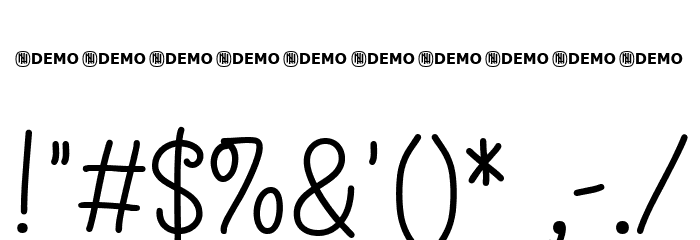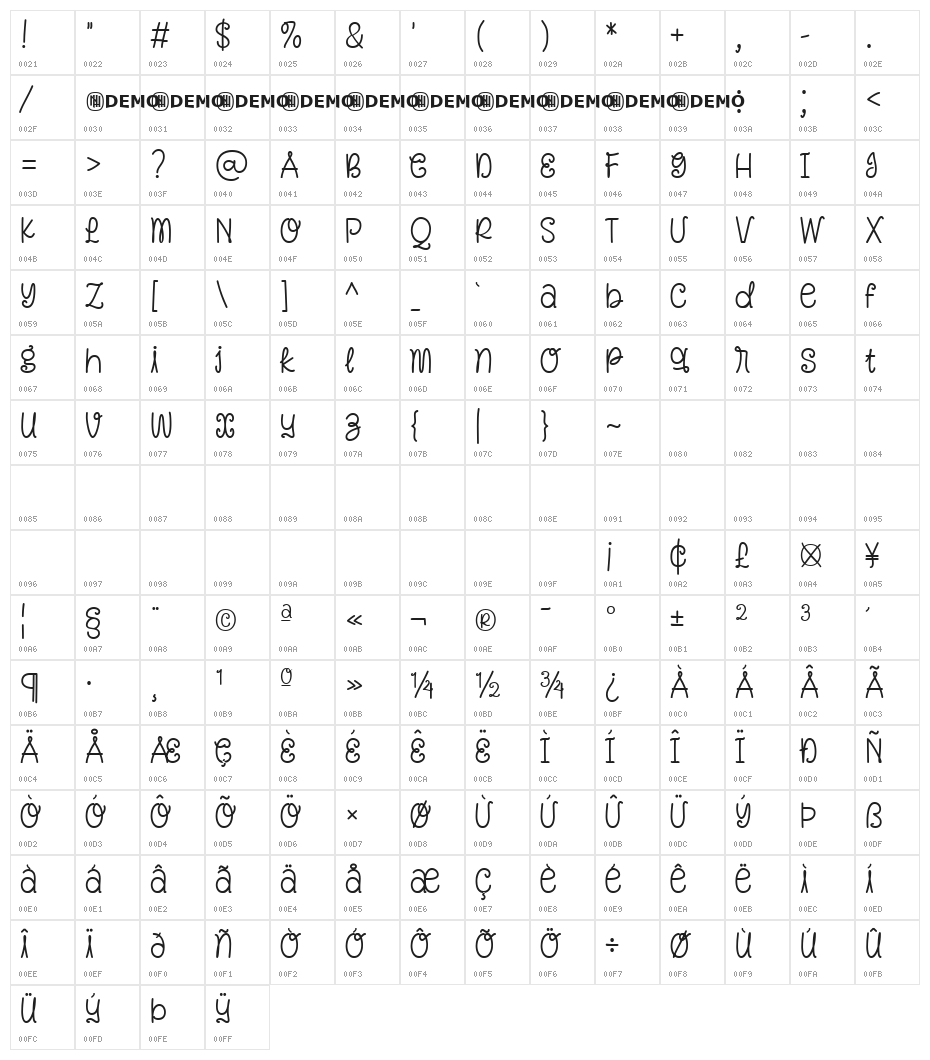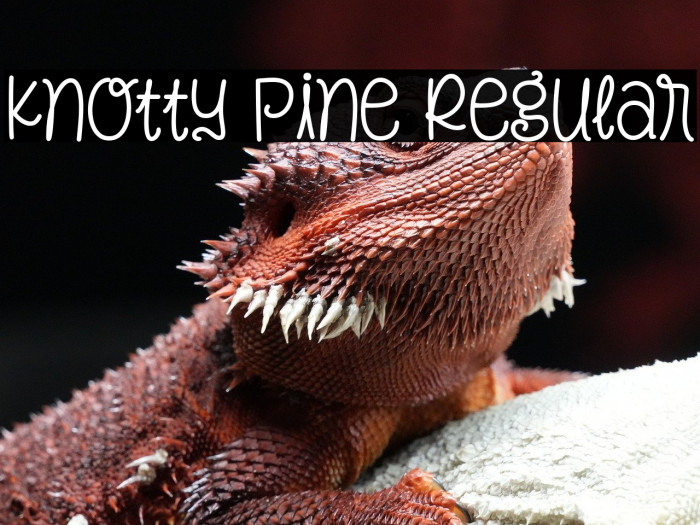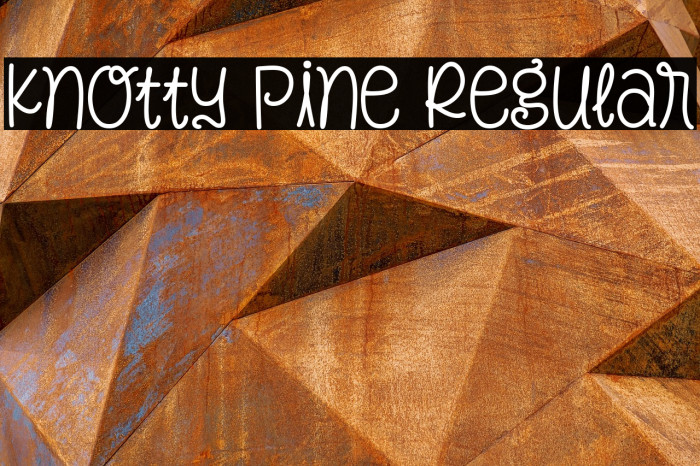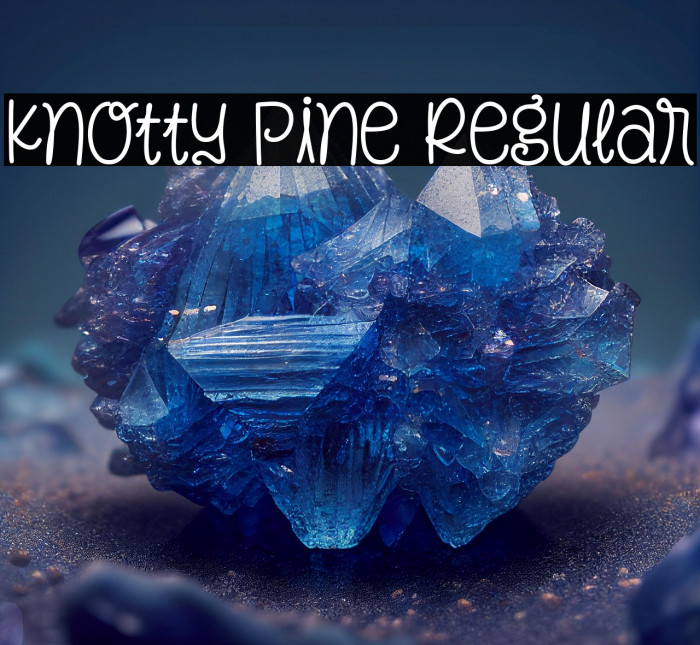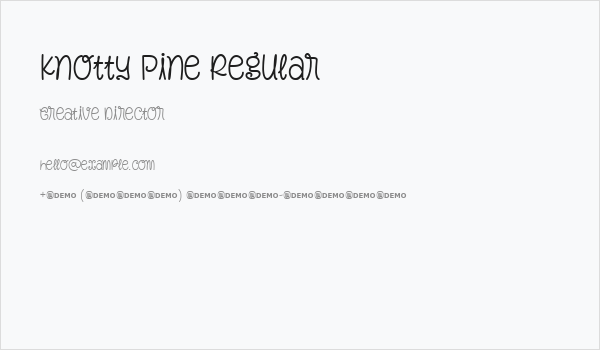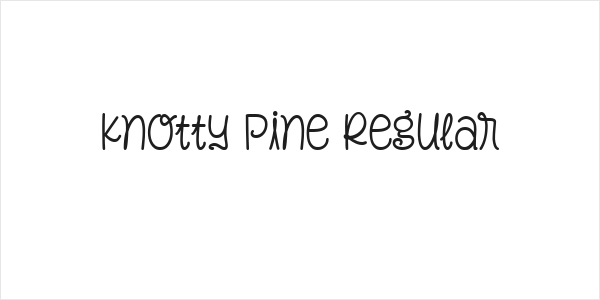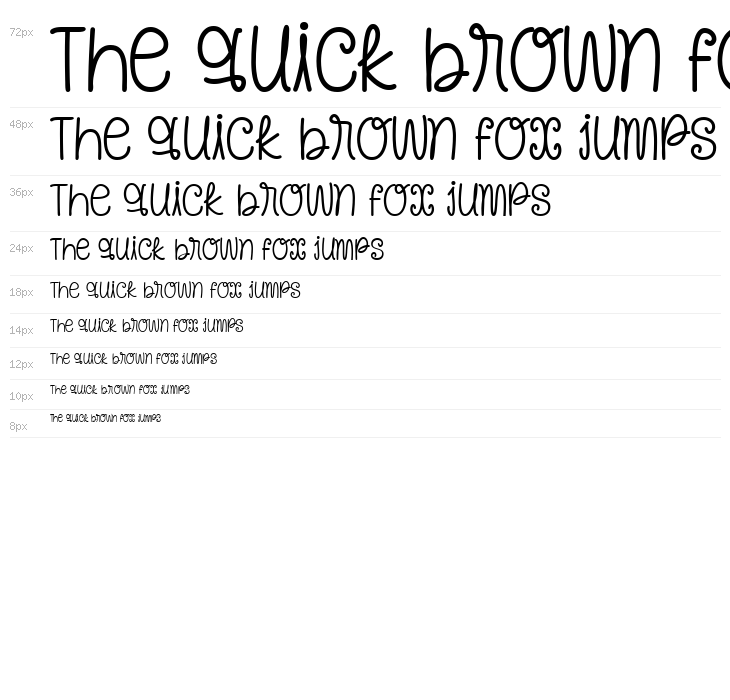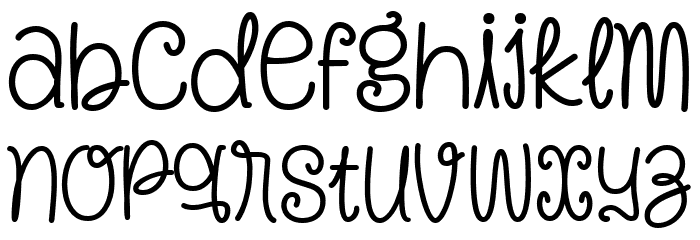
Knotty Pine Regular Font
Knotty Pine Regular Description
This font features a playful and whimsical design with a hand-drawn appearance. The characters are curvy and interconnected, giving a sense of fluidity and movement. The uppercase and lowercase letters maintain a consistent style, with loops and swirls that add a decorative touch. The numbers and special characters follow the same playful theme, making the font suitable for creative and informal projects. The overall look is unique and artistic, perfect for adding a personal touch to any design.
| Proposed Projects | Ideal for children's books, greeting cards, playful branding, and artistic posters. |